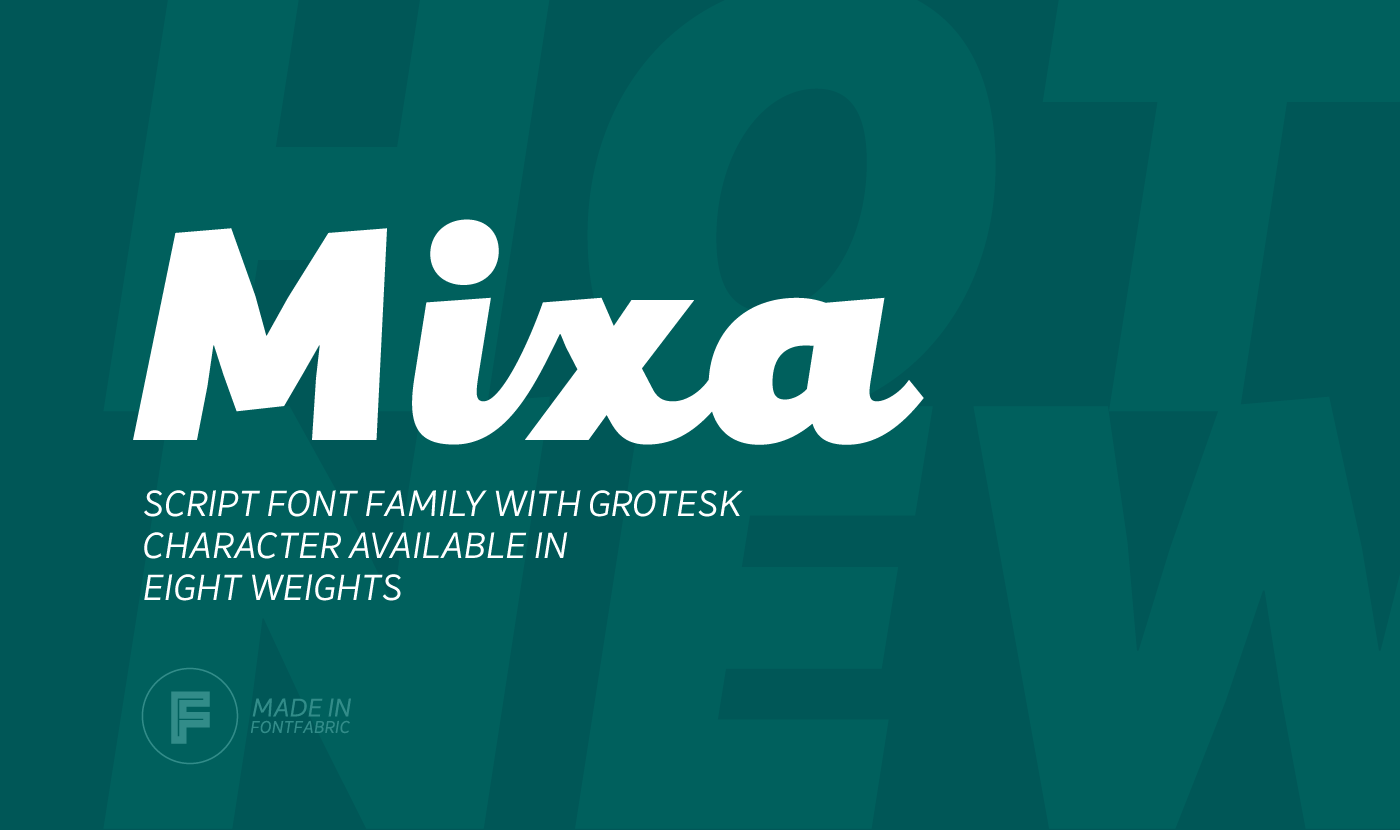
Mixa Font Family
Mixa Script Font Family Free Demo
Befonts introduce to you the set of fonts, Misa font designer by Fontfabric, this is a form of Sans Serif fonts mixed with the classical handwritten script.
Neo-grotesque Sans Serif mixed with the classical handwritten Script in slanted geometric shapes – that’s the way Mixa was born. Those two faces of the new font family makes it as much as unique and recognizable. When you’re using the Capitals only nobody will suspect that there is script hidden in the lowercase. That’s why all eight weights can be combined perfectly with wide list of classical Sans Serif, Slab Serif and Serif typefaces.